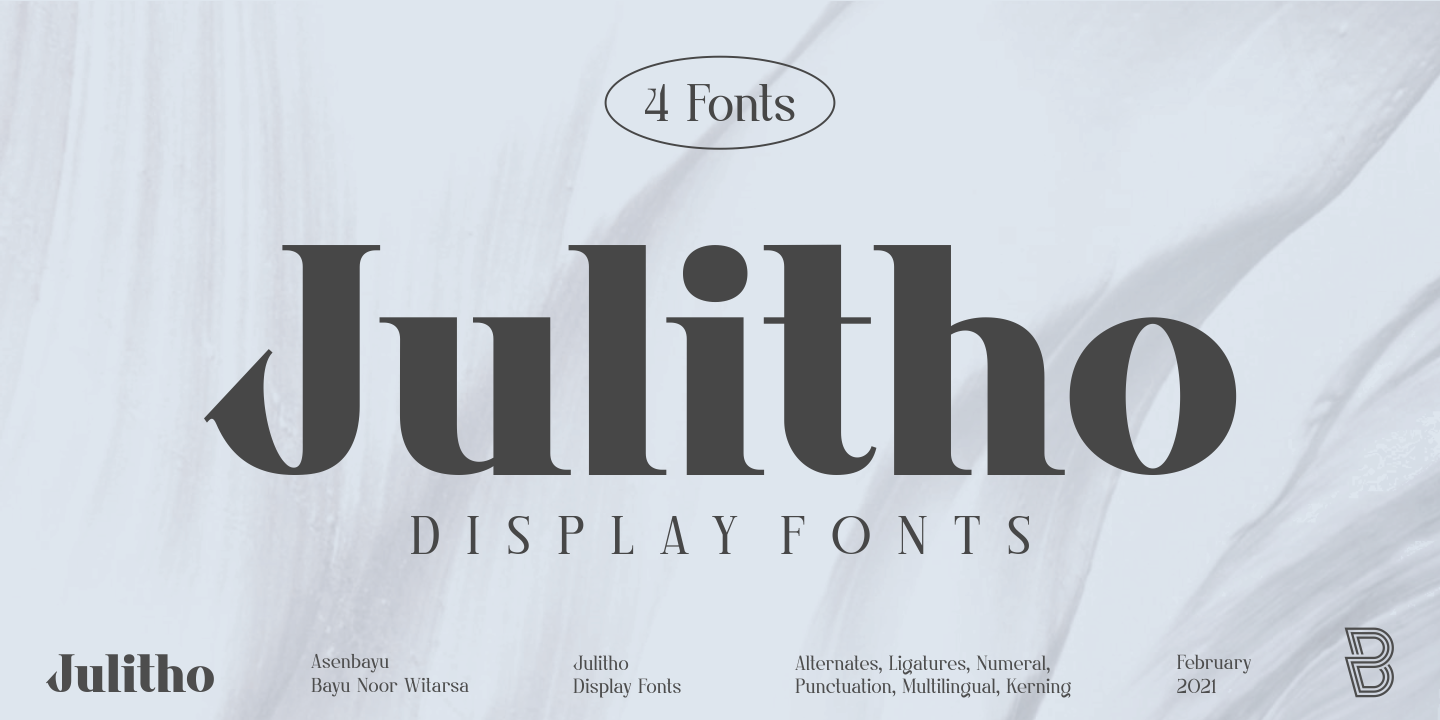
This sophisticated font is perfect for luxury fashion magazines, high-end beauty brands, elegant wedding collections, premium lifestyle publications, upscale boutique signage, refined corporate identities, exclusive event materials, and distinguished editorial design. Its graceful character makes it ideal for projects requiring contemporary elegance and refined sophistication.
Julitho Font is exciting because it masterfully balances modern minimalism with classical elegance, featuring carefully crafted letterforms that embody both contemporary trends and timeless beauty. The font showcases refined proportions, subtle curves, and delicate details that create an atmosphere of understated luxury and sophisticated charm. Its versatile personality appeals to discerning audiences while maintaining exceptional functionality across diverse applications.
The Julitho Font family typically includes multiple weights from light to bold, along with italic variations and comprehensive character sets. Many versions feature stylistic alternates, elegant ligatures, and premium OpenType features that enhance its versatility for luxury brand applications and international design projects.
Whether you're developing premium brand identities, luxury marketing campaigns, or sophisticated editorial projects, Julitho Font Free Download provides contemporary refinement with professional excellence. This typeface transforms ordinary communications into distinguished statements that resonate with affluent audiences who appreciate quality craftsmanship and modern sophistication. Its distinctive character ensures memorable brand recognition while maintaining exceptional legibility across all platforms, making it an essential resource for designers who understand that Julitho Font Free Download represents the perfect fusion of contemporary design innovation with timeless elegance in today's luxury marketplace.